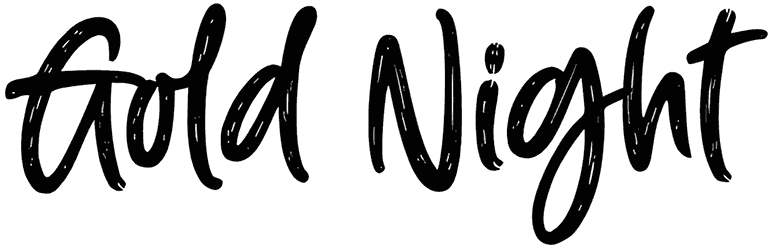
Gold Night Font
Designed bySubectype Orenari
Gold Night is an elegant, natural brush font that includes stylish, bold handwritten characters. Utilizing this font will result in a nice typography with a modern look. Giving its beauty the thumbs up, a few places to give it a try would be cards, invitations, CD covers, clothing, and branding for a playful, friendly feel.